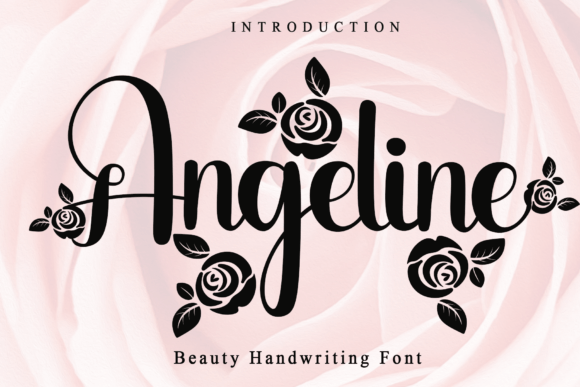
Discover the Elegance of Angeline Font: A Beautifully Flowing Script Font
In the world of typography, few fonts manage to capture the essence of elegance and sophistication as beautifully as Angeline Font. This stunning script font is designed to bring a touch of charm and refinement to any project, making it a popular choice among designers and creative professionals. With its smooth curves and handwritten feel, Angeline Font is perfect for a variety of applications, from wedding invitations and personal branding to elegant packaging and romantic quotes.
Key Features of Angeline Font
- Smooth Curves: Angeline Font boasts smooth, flowing curves that give it a luxurious and refined appearance.
- Handwritten Feel: Despite its polished look, Angeline Font retains a handwritten feel that adds a personal touch to any text.
- Elegant Ligatures: The font includes elegant ligatures that enhance its sophisticated look.
- Versatile: Angeline Font is highly versatile and can be used for a wide range of projects, from formal to informal.
Perfect for Wedding Invitations
Wedding invitations are one of the most popular uses for Angeline Font. The font’s elegant and romantic style makes it ideal for conveying the joy and sophistication of a wedding. Whether you’re designing formal wedding invitations or more casual save-the-date cards, Angeline Font adds a touch of luxury and refinement.
Wedding Invitation Design Tips
- Pair with Simple Imagery: Let the beauty of Angeline Font shine by pairing it with simple, elegant imagery.
- Use Foil Stamping: Enhance the luxurious feel of your invitations with foil stamping.
- Keep it Minimal: Avoid cluttering the design with too many elements. Let the font be the focal point.
Elevate Your Personal Branding with Angeline Font
Personal branding is all about creating a unique and memorable identity, and Angeline Font can help you achieve that. Its sophisticated and elegant style makes it perfect for:
- Logos: Use Angeline Font to create a stylish and memorable logo.
- Business Cards: Add a touch of elegance to your business cards.
- Website Headers: Use Angeline Font to create stunning website headers that reflect your brand’s personality.
Elegant Packaging Solutions with Angeline Font
Angeline Font is not just limited to digital applications. Its elegant style makes it perfect for packaging design, adding a touch of sophistication to product packaging. Use Angeline Font for:
- Product Labels: Create stylish and informative product labels.
- Box Design: Add a touch of luxury to your product packaging with Angeline Font.
- Brochures: Use Angeline Font to create elegant and informative brochures.
Romantic Quotes and Angeline Font
Angeline Font is also perfect for sharing romantic quotes and messages. Its elegant and flowing style brings a touch of romance to any text, making it ideal for:
- Social Media Posts: Share romantic quotes on social media with Angeline Font.
- Planners and Journals: Add inspiring and romantic quotes to planners and journals.
- Wall Art: Create stunning wall art with romantic quotes using Angeline Font.
Typography Tips for Using Angeline Font
To get the most out of Angeline Font, consider the following typography tips:
- Use it Sparingly: Angeline Font is elegant and sophisticated, so use it sparingly to avoid overwhelming the reader.
- Pair with Serif Fonts: Pair Angeline Font with serif fonts for a classic and elegant look.
- Adjust Letter Spacing: Adjust the letter spacing to enhance the font’s readability and aesthetic appeal.
Angeline Font is a beautifully flowing script font that radiates charm and sophistication. With its smooth curves and handwritten feel, it’s perfect for a variety of applications, from wedding invitations and personal branding to elegant packaging and romantic quotes. By incorporating Angeline Font into your design projects, you can add a touch of elegance and refinement that will leave a lasting impression.